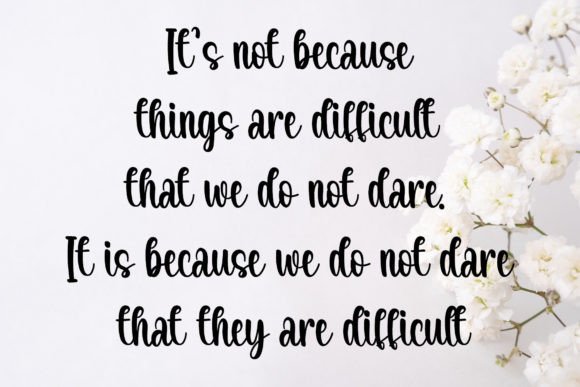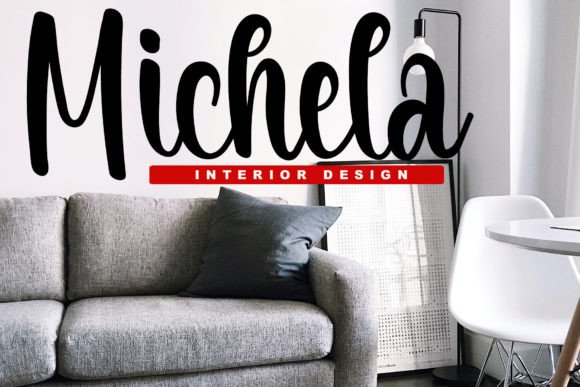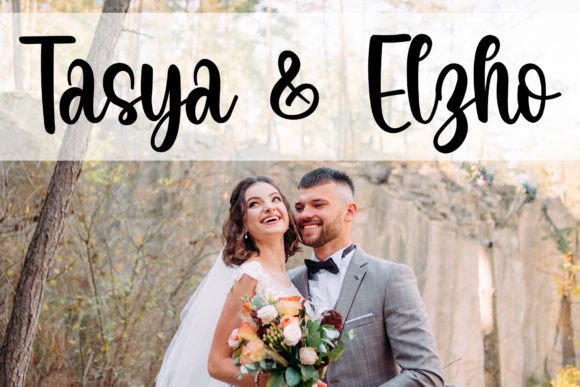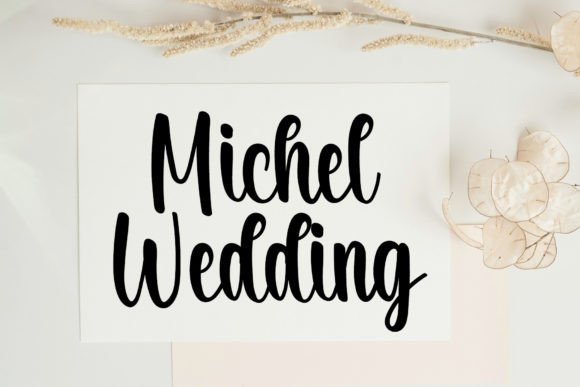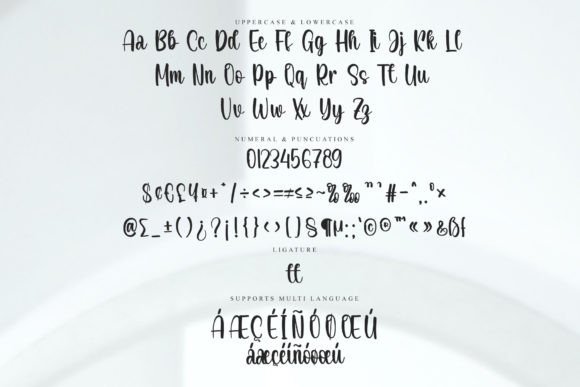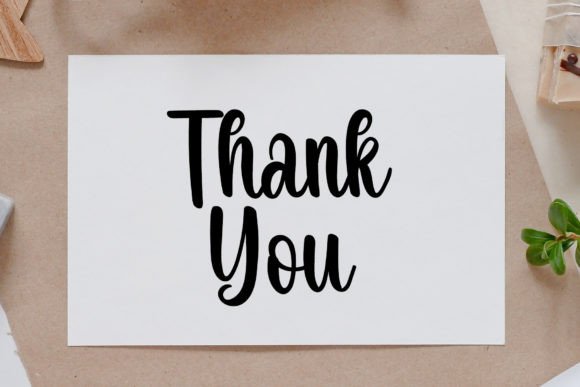
Introduction to Mothering Font Font
Fonts play a crucial role in design, and the Mothering Font font is a typeface that brings both character and versatility to any project. Whether you’re working on a branding project, a website, or a print design, the Mothering Font font offers a unique style that can elevate your work.
Mothering is a stylish handwritten font with a contemporary atmosphere and impeccable form, inspired by timeless classic calligraphy.
Balanced and varied, this font was designed to enhance the beauty of your projects .
Key Features of Mothering Font Font
Why Choose Mothering Font Font?
The Mothering Font font is more than just a typeface – it’s a design tool that helps you communicate your message with style and clarity. Its unique character set and versatile design make it suitable for a wide range of applications, from elegant invitations to bold headlines.
With its carefully crafted letterforms and balanced proportions, the Mothering Font font ensures readability and visual appeal across all mediums.
What makes Mothering Font font special?
The Mothering Font font stands out with its unique design, exceptional readability, and versatility across various design applications.